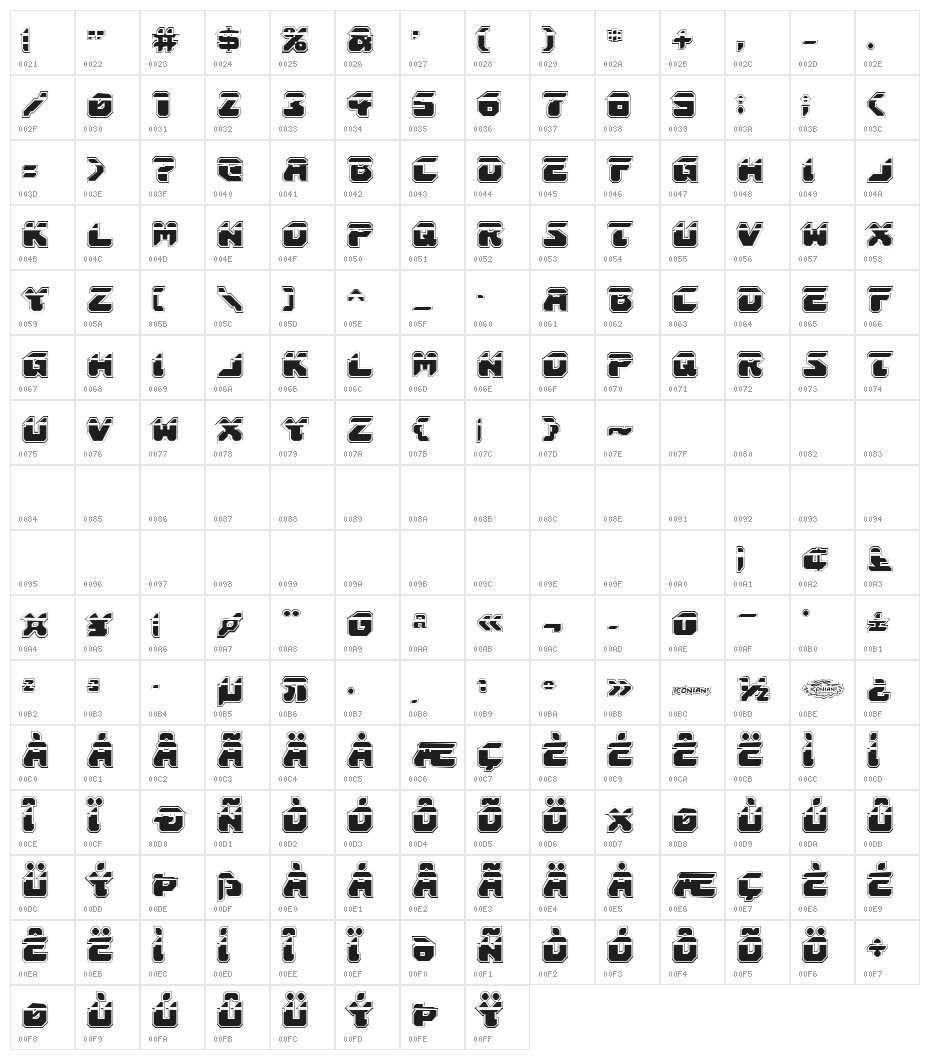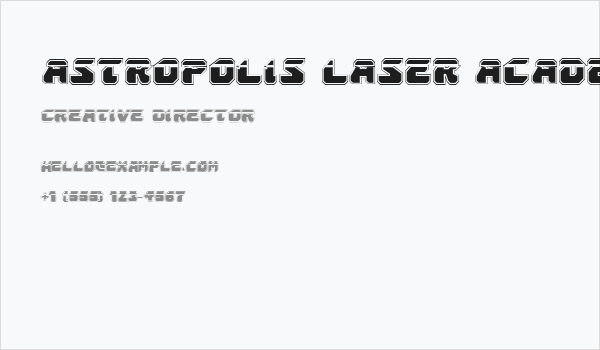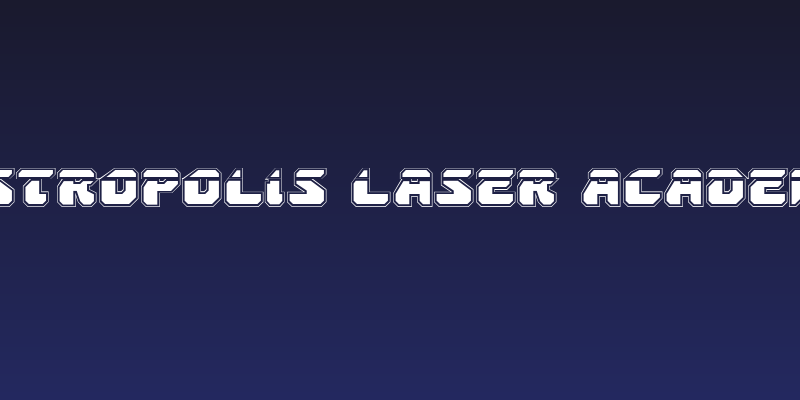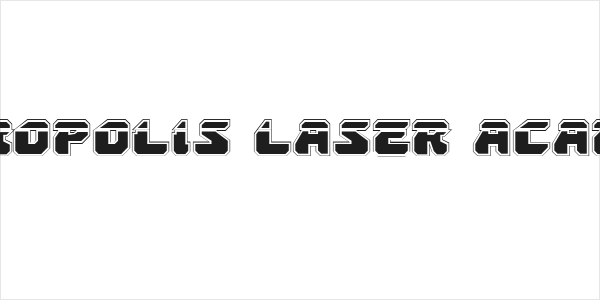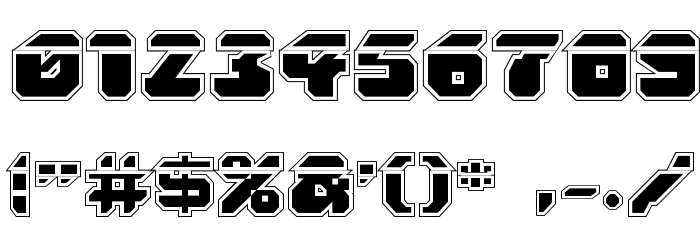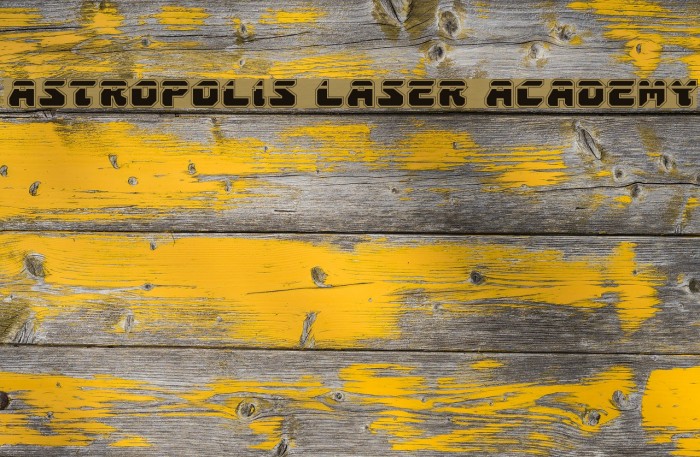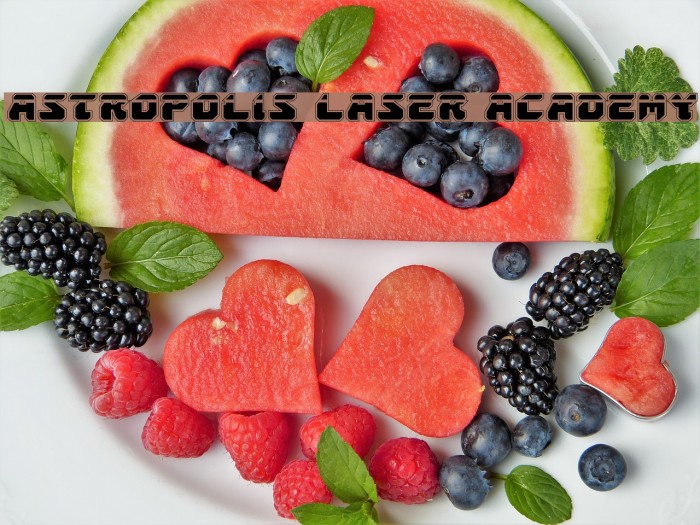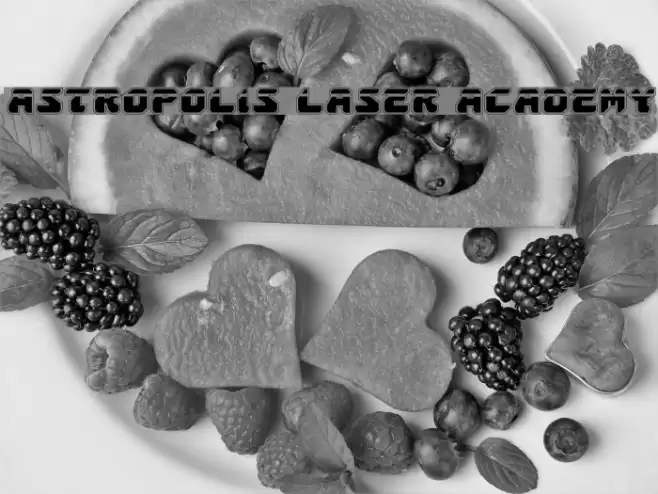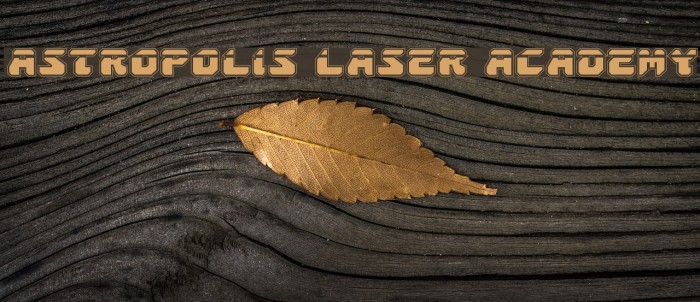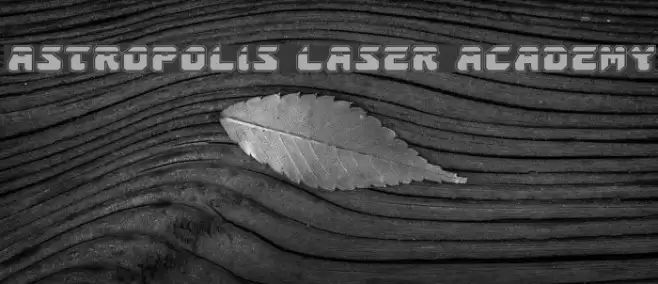
Astropolis Laser Academy Font
Astropolis Laser Academy Description
This font features a futuristic and bold design with a distinct geometric structure. Each character is crafted with sharp angles and a blocky appearance, giving it a strong and impactful presence. The letters are outlined with a thick border, enhancing their visibility and adding a three-dimensional effect. The style is reminiscent of digital or sci-fi themes, making it ideal for projects that require a modern and technological aesthetic. The uppercase and lowercase letters maintain a consistent design, while the numbers and special characters complement the overall look with similar angular and bold characteristics.
| Proposed Projects | Ideal for sci-fi themed designs, video game titles, tech branding, and futuristic posters. |